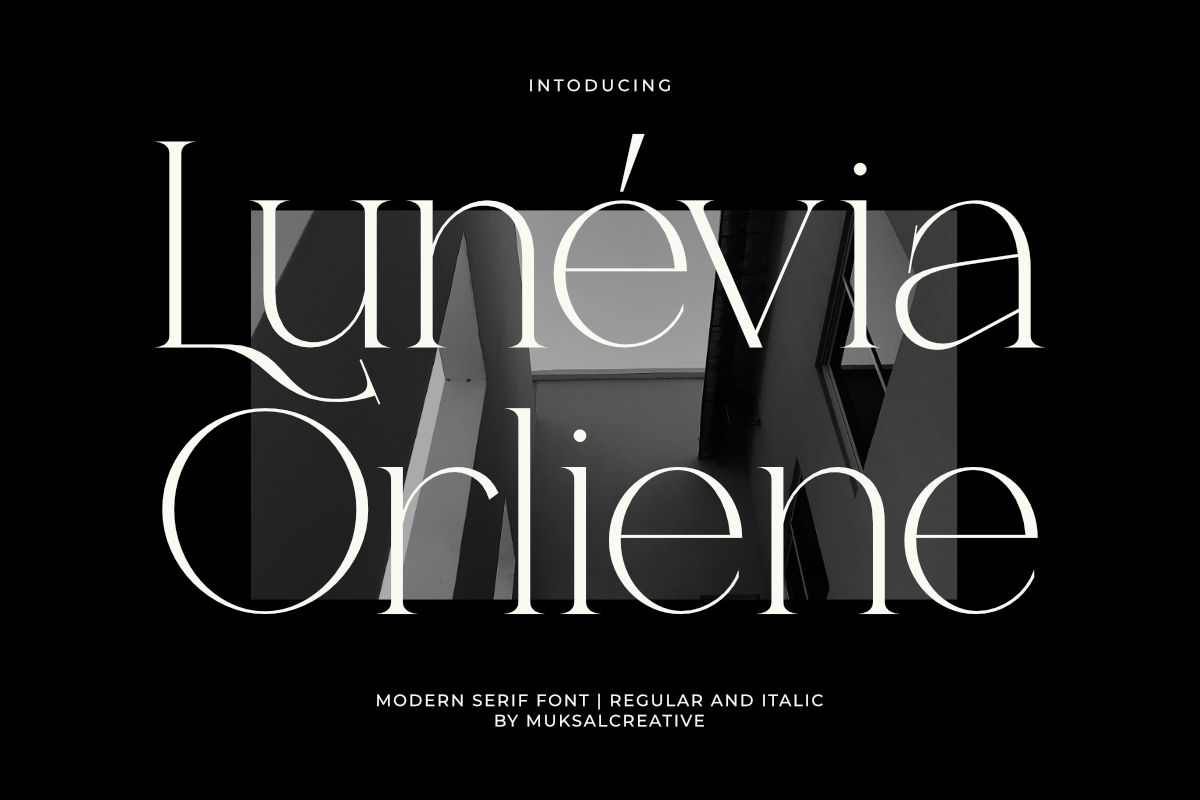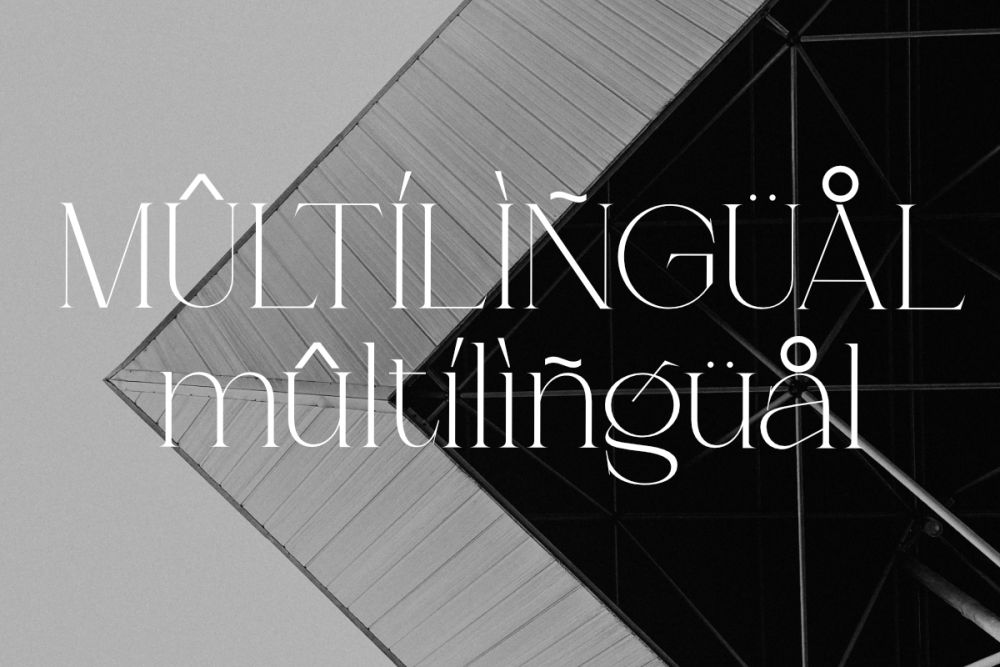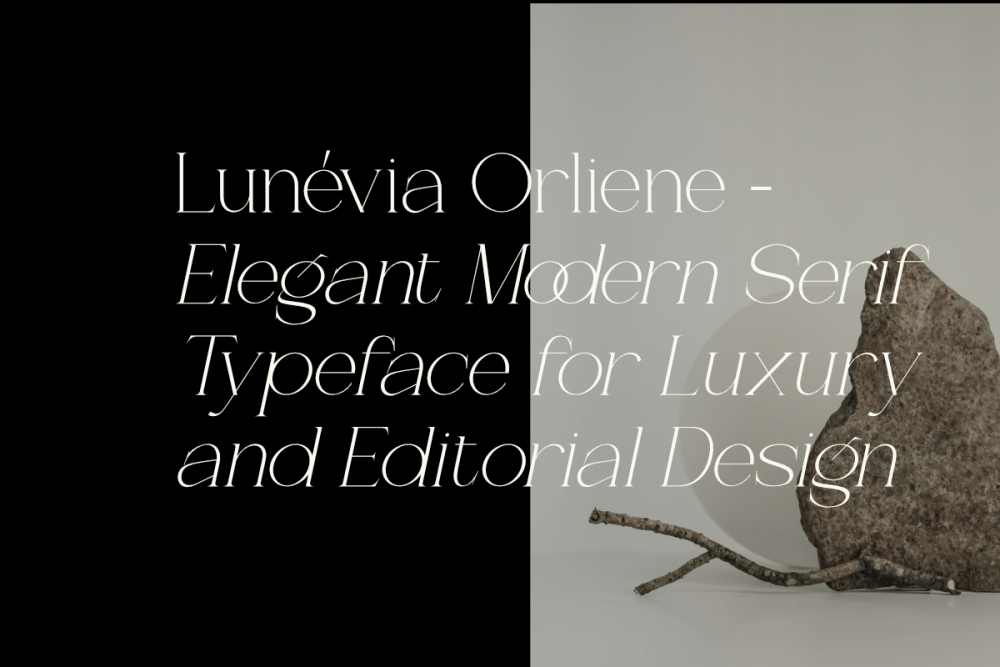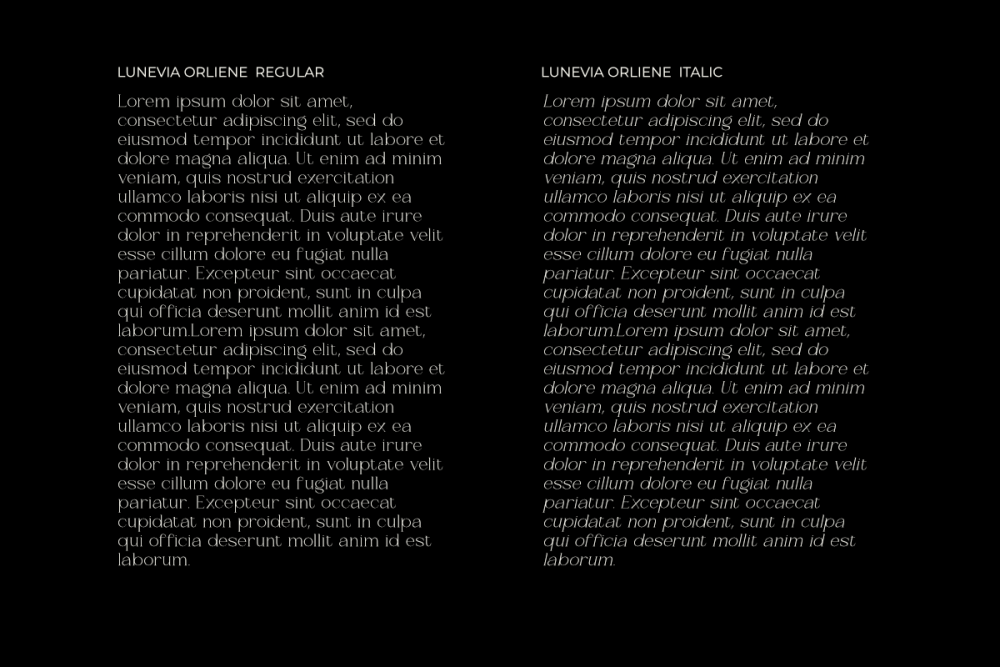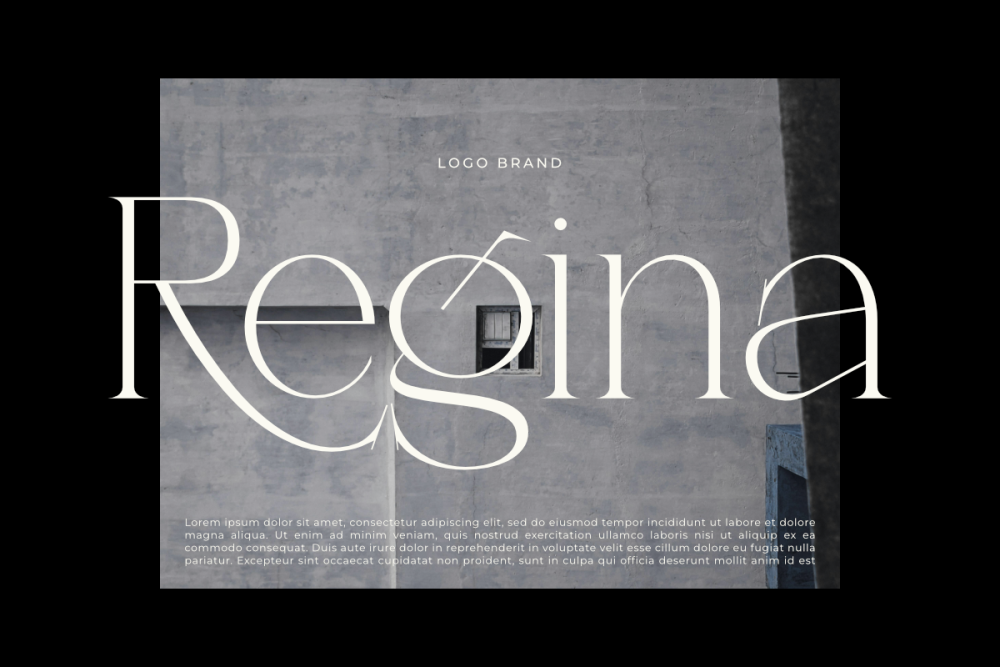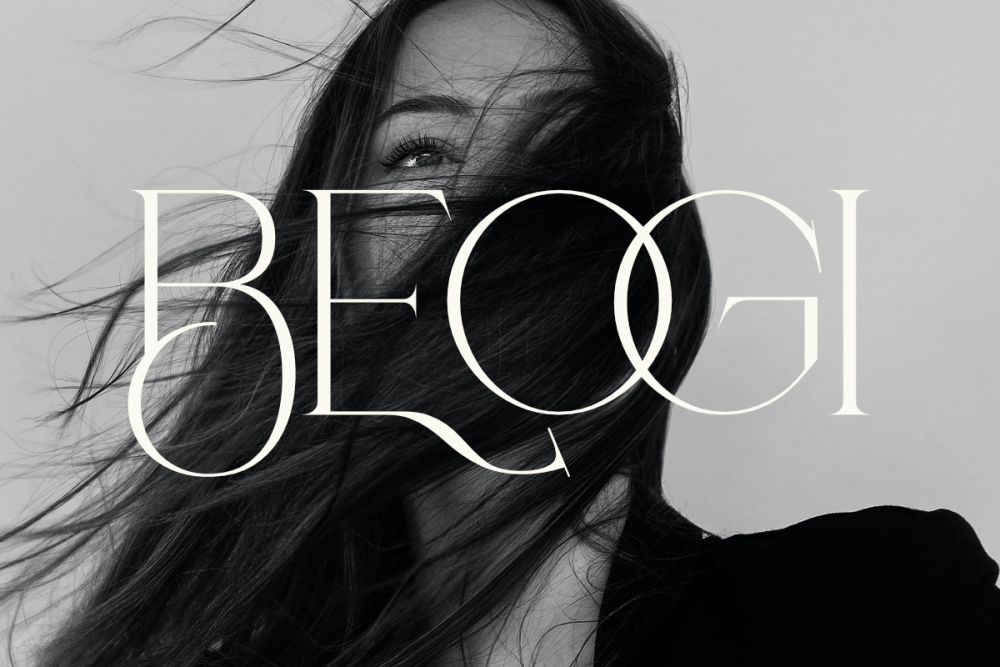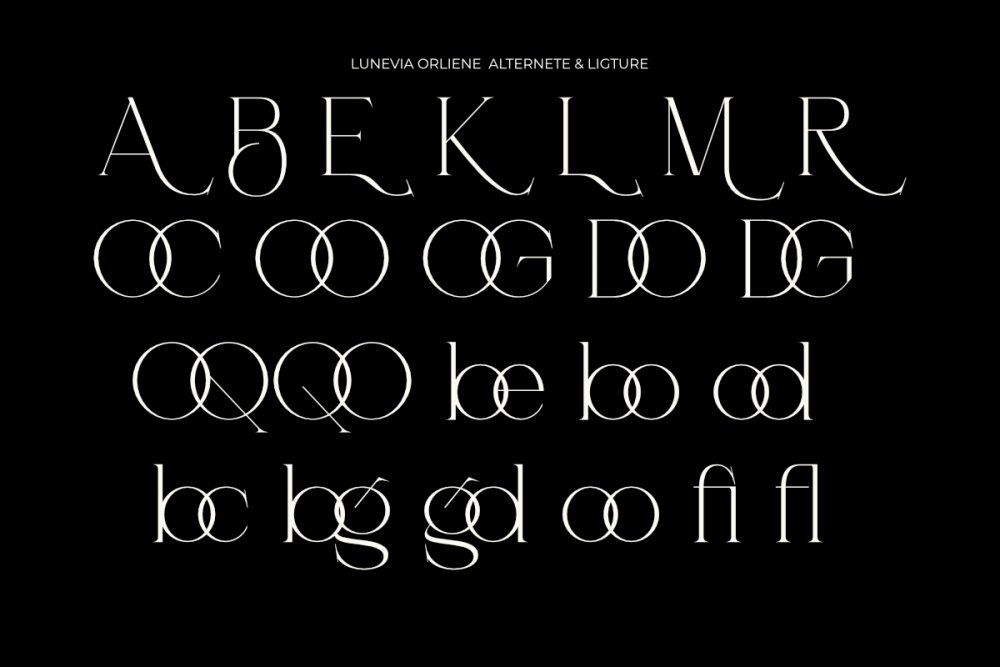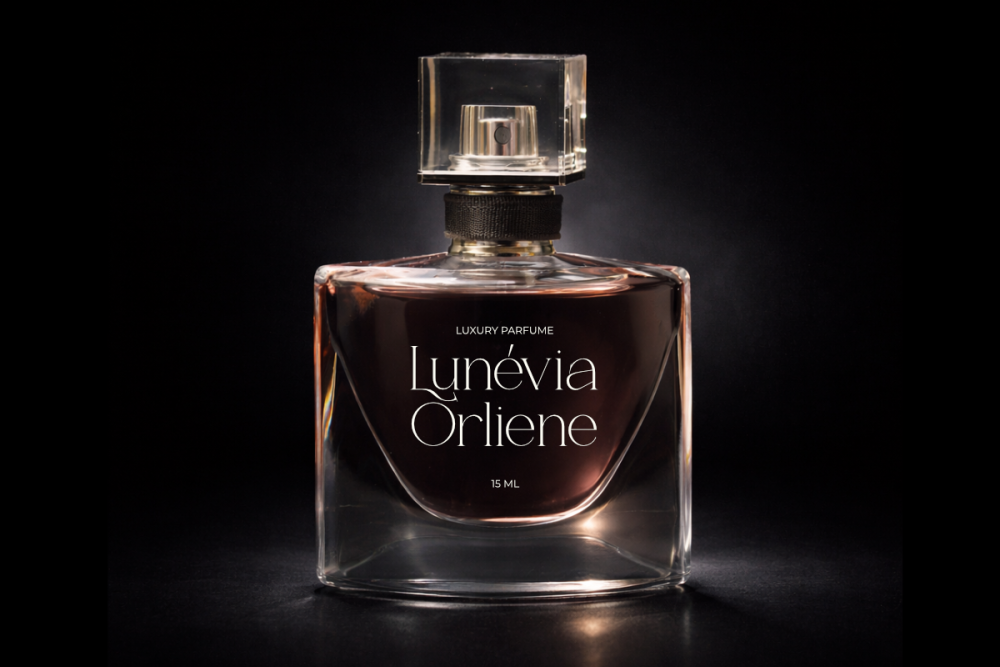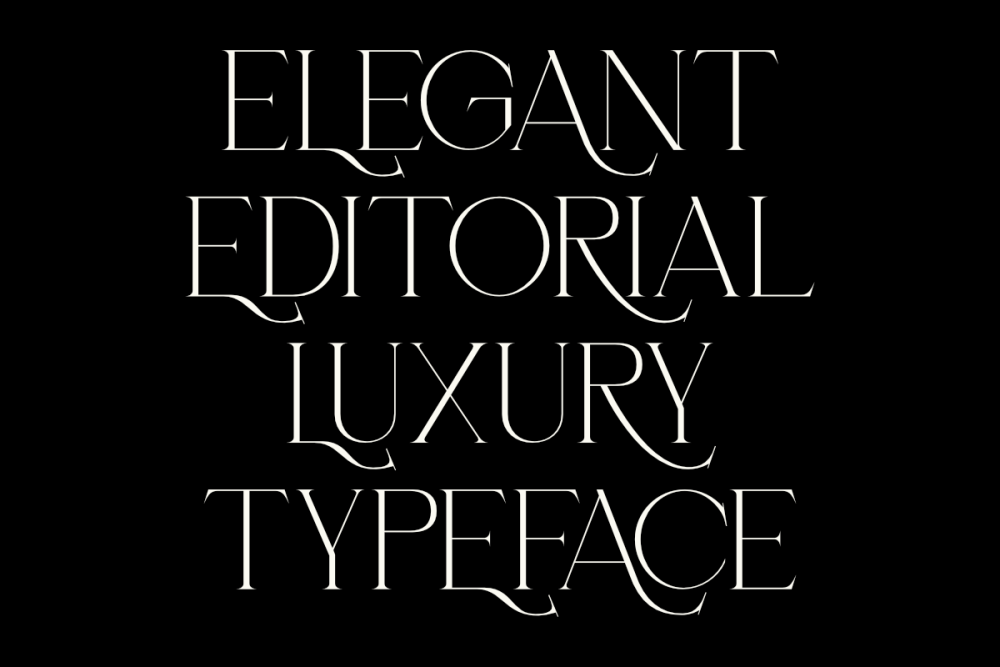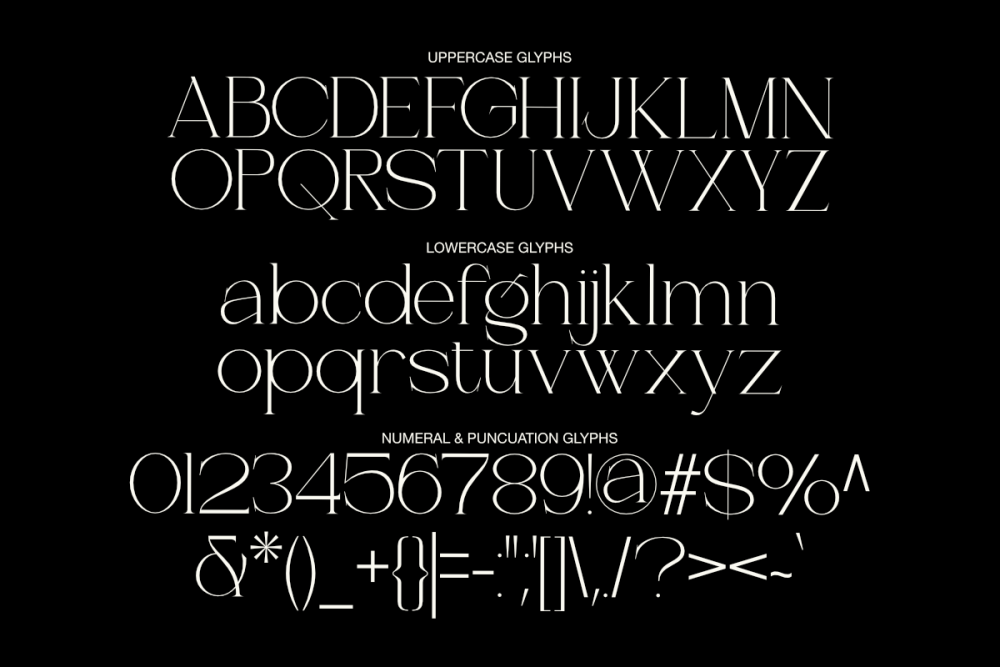
Lunévia Orliene
Lunévia Orliene Italic
Lunévia Orliene is a modern elegant serif typeface designed with refined details, graceful curves, and high contrast strokes. This typeface delivers a sophisticated and timeless look, making it perfect for luxury and editorial design.
Carefully crafted with stylish letterforms and subtle artistic touches, Lunévia Orliene brings a premium feel to branding, fashion visuals, and high-end typography compositions.
Lunévia Orliene comes in two styles: Regular and Italic, along with beautifully designed alternates and ligatures that enhance creativity and give your designs a unique and expressive touch.
• Regular & Italic styles
• Uppercase & lowercase characters
• Numerals & punctuation
• Multilingual support (Latin Extended)
• Alternates characters
• Ligatures
• High contrast elegant serif style
Lunévia Orliene – Elegant Modern Serif Typeface with Refined and Timeless Style